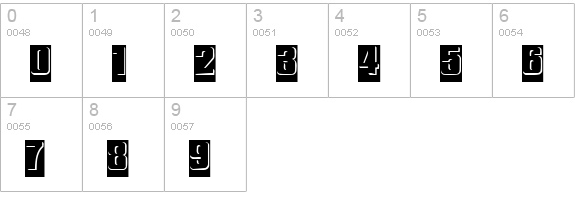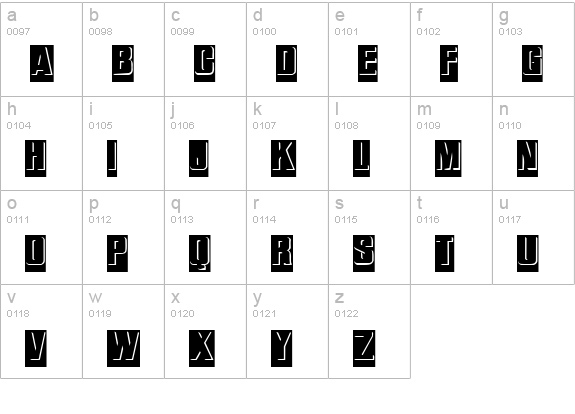
Sarkophag Font Details
Introducing Sarkophag, a stunning font that exudes elegance and sophistication. With its bold lines and sharp angles, Sarkophag demands attention and makes a statement in any design project. This versatile typeface is perfect for branding, headlines, posters, and more. Best of all, Sarkophag is free to download at FontsMarket.com. Whether you're a graphic designer looking to add a touch of flair to your creations or a business owner in need of a unique font for your marketing materials, Sarkophag is the perfect choice. Don't miss out on this incredible opportunity to elevate your designs with this exceptional font. Download Sarkophag today and unleash your creativity!